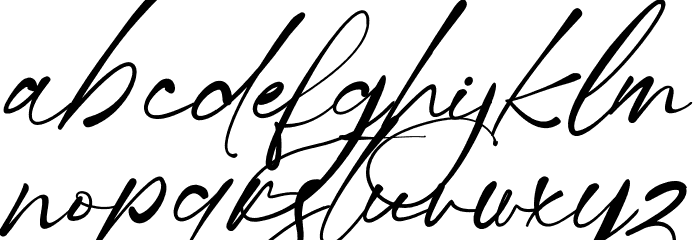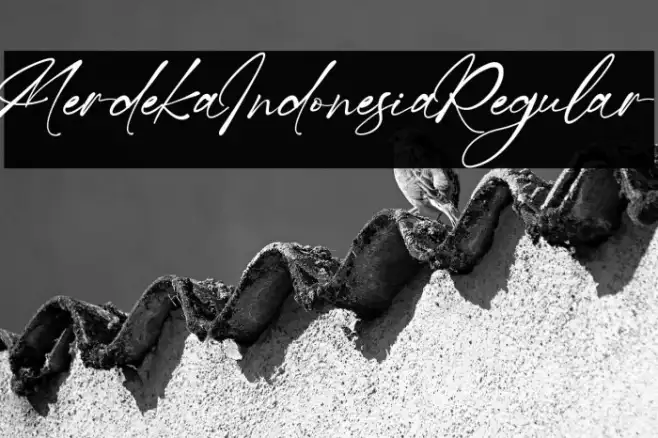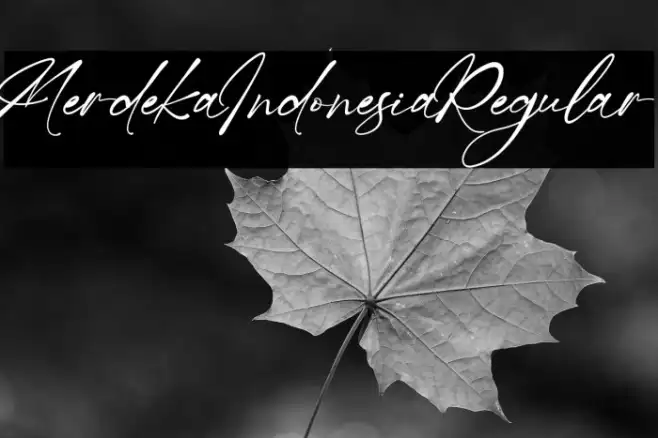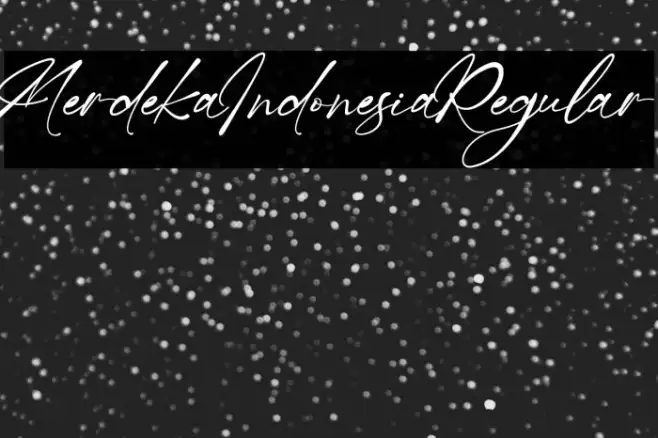
MerdekaIndonesiaRegular Font
This font exudes a dynamic and artistic flair, characterized by its fluid and cursive script style. The letters are elegantly connected, showcasing a harmonious flow that mimics natural handwriting. The strokes vary in thickness, adding a sense of movement and vitality. The uppercase letters are bold and expressive, while the lowercase letters maintain a graceful continuity. This font is ideal for projects that require a personal touch or a creative edge, such as invitations, greeting cards, or artistic branding. Its unique style captures attention and conveys a sense of elegance and sophistication.
A dynamic cursive script font with fluid, expressive strokes.
- Proposed Projects: Ideal for invitations, greeting cards, artistic branding, and personal projects.
- Use Case: Logos, Headlines, Artistic projects